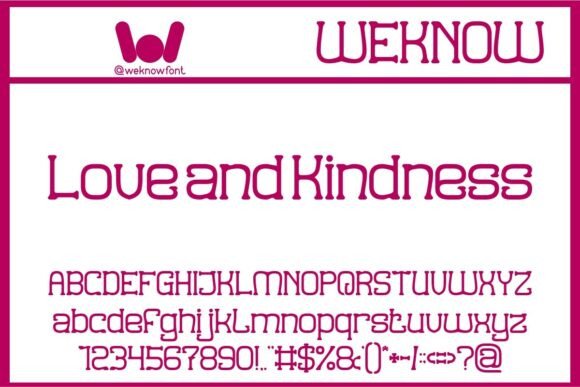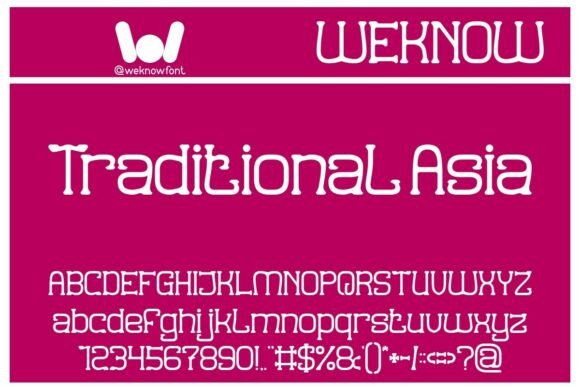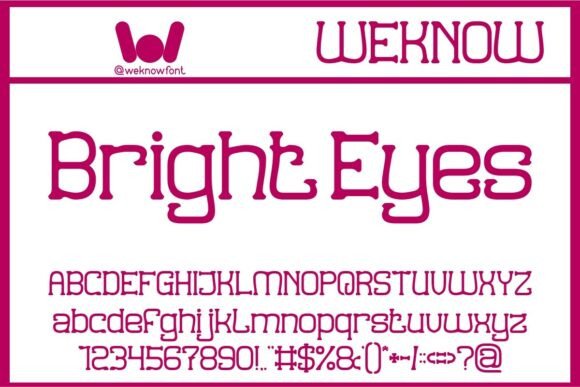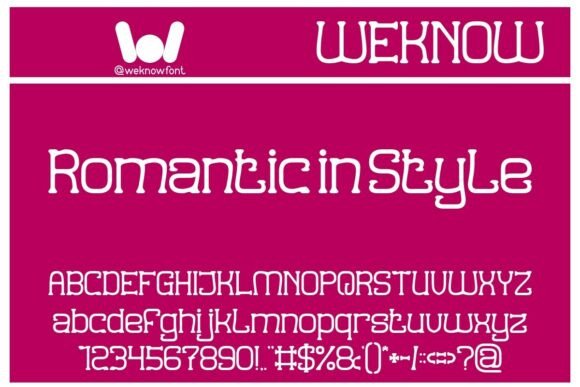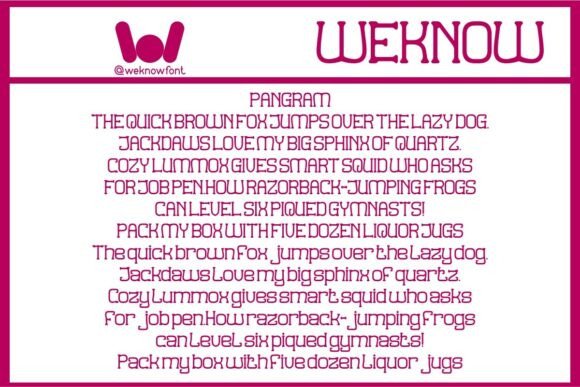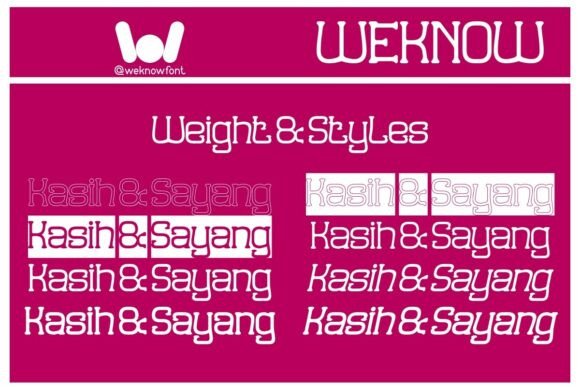
Introduction to Kasih Sayang Font
Have you ever stumbled upon a font that instantly sparks your creativity and sets your imagination ablaze? For designers, discovering a high-quality design resource like the Kasih Sayang Font can be a game-changer. Its unique blend of quirkiness and refinement makes it a standout choice for any creative project, whether you’re working on a magazine cover, a YouTube thumbnail, or a corporate identity.
What makes Kasih Sayang Font truly special is its ability to effortlessly balance tradition and innovation, creating a geometric aesthetic that’s both elegant and attention-grabbing. With its monoline display style and eclectically diverse letterforms, this font is perfect for designers who want to add an edge of contemporary style to their work. And the best part? It’s available for free download, making it an accessible design resource for creatives of all levels.
Key Features of Kasih Sayang Font
- Unique Hand-Drawn Design: The Kasih Sayang Font features a beautiful hand-drawn design, perfect for creative projects that require a personal touch.
- Perfect for Personal Projects: With its unique hand-drawn design, the Kasih Sayang Font is perfect for personal projects, such as invitations, greeting cards, and more.
Honest Review: Kasih Sayang Font
- ✨ High-quality design: The Kasih Sayang Font has a unique and elegant feel to it, making it perfect for creative projects that require a touch of sophistication.
- ⚠️ Limited character set: While the font is high-quality, its character set is somewhat limited, which may make it less suitable for longer texts or complex designs.
Overall, I’m impressed with the Kasih Sayang Font. It’s a great design resource that can add a personal touch to any creative project. Its high-quality design and transparent background make it a versatile choice for designers. While it may have some limitations, I think it’s definitely worth checking out.
The Kasih Sayang Font is a high-quality design resource perfect for creative projects. With its unique style and transparent background, it’s an ideal choice for designers and artists looking to add a personal touch to their work.
Tips for Getting the Most Out of Kasih Sayang Font
To achieve the best results, use the Kasih Sayang Font in conjunction with other high-quality design resources. Experiment with different font sizes, colors, and arrangements to create a unique and eye-catching design.
The Kasih Sayang Font is suitable for a wide range of creative projects, including:
- Birthday and holiday cards.
- Business logos and branding materials.
- Artistic prints and posters.